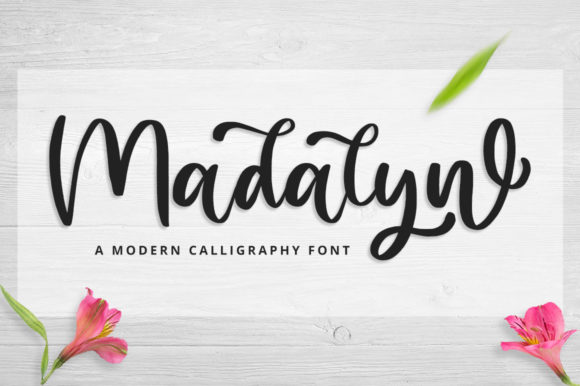
Embark on a typographic journey with Madalyn Font, the enchanting script font poised to redefine your creative expression. Its charmingly casual handwritten style exudes a welcoming and approachable aura, inviting your audience into a world of warmth and artistry. Madalyn is not merely a font; it's an artistic gateway to transforming your words into captivating expressions of your unique style.
Picture the allure of social media posts that leap off the screen with Madalyn's graceful strokes, captivating your followers with its undeniable charm. Let your Instagram feed radiate with an authentic and inviting personality that draws your audience in like moths to a flame. Madalyn's versatility extends beyond the digital realm, seamlessly adapting to the physical world of DIY projects. It's the perfect companion for handcrafted cards, personalized gifts, and home décor accents that speak volumes about your impeccable taste and attention to detail.
Madalyn's repertoire of gorgeous swashes and ligatures elevates it beyond a mere font, propelling it into the realm of artistry. These intricate embellishments dance harmoniously across your words, adding a touch of elegance and sophistication that captivates the eye. Whether you're a seasoned calligrapher seeking the perfect script or a passionate crafter seeking to elevate your projects, Madalyn is your muse, your trusted partner in bringing your creative visions to life.
With Madalyn by your side, mundane tasks transform into expressions of art. It's the perfect font for modern websites, where every word you type becomes a reflection of your brand's personality, a testament to your dedication to excellence. Madalyn's friendly demeanor and captivating charm will leave an indelible mark on your audience, fostering a connection that transcends the boundaries of the digital world.
In the realm of fonts, Madalyn stands as a beacon of inspiration, an open invitation to embrace the beauty of handwritten artistry. Its versatility knows no bounds, adapting seamlessly to a myriad of creative endeavors, from social media posts and calligraphy scripts to DIY projects and modern websites. Madalyn is more than just a font; it's a key that unlocks the door to a world of creative possibilities, where your imagination takes center stage and your words dance with grace and elegance.